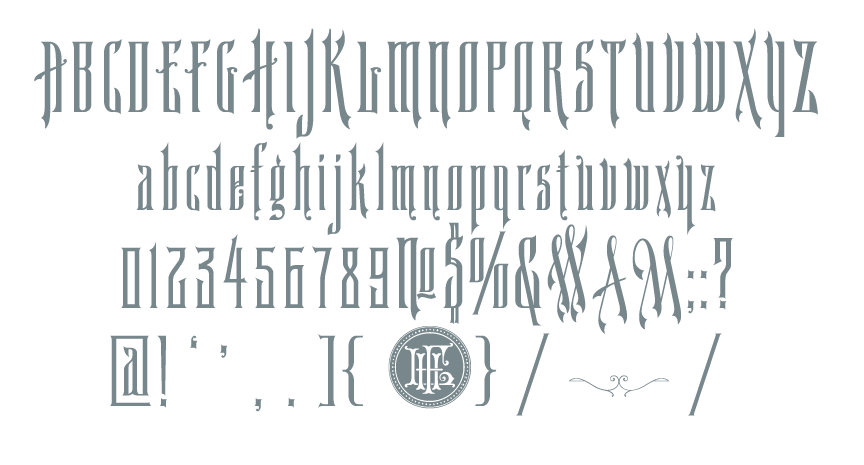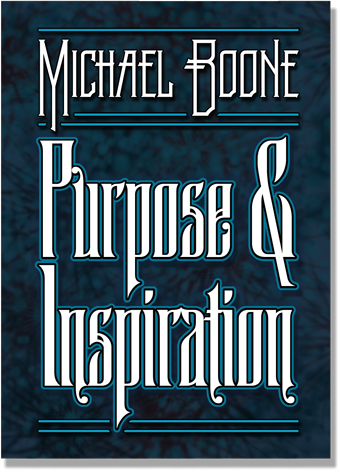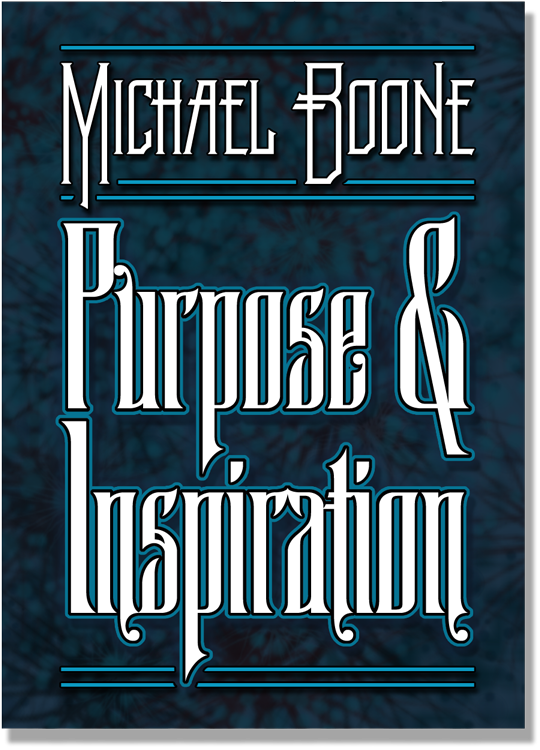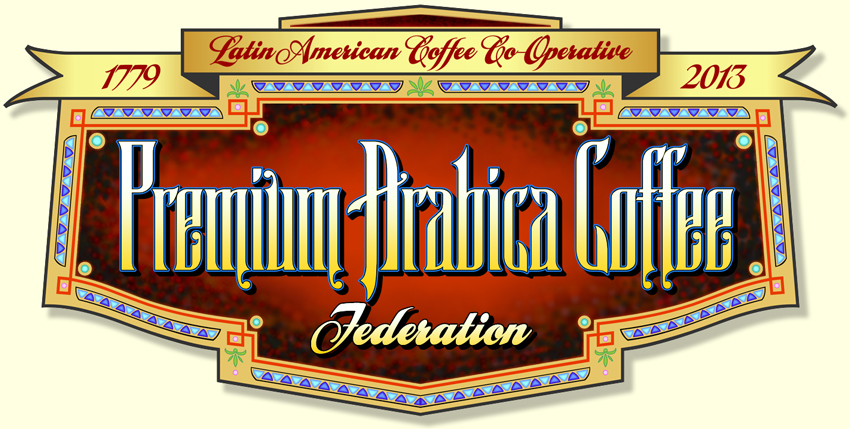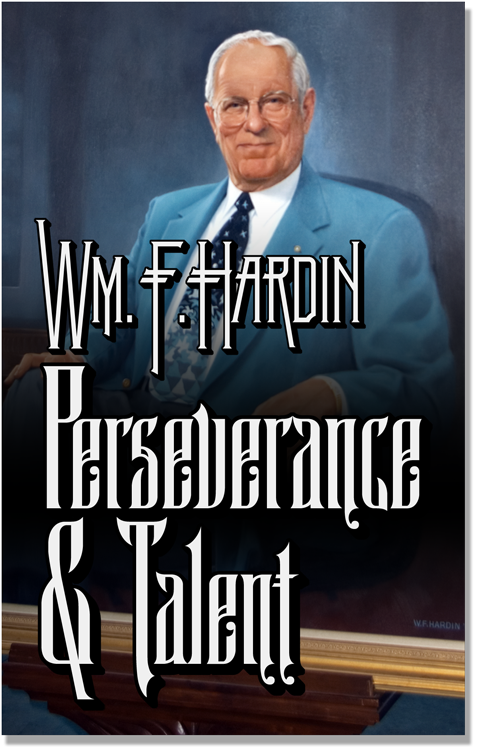
Blackstone 2 is another of the fonts developed for the map art font collection project at LHF. Blackstone 2 is the second of two fonts of the Blackstone set. Blackstone 1 was designed by John Studden and can be found on the Blackstone page at Letterhead Fonts.